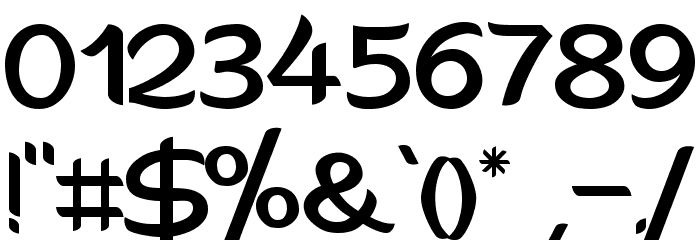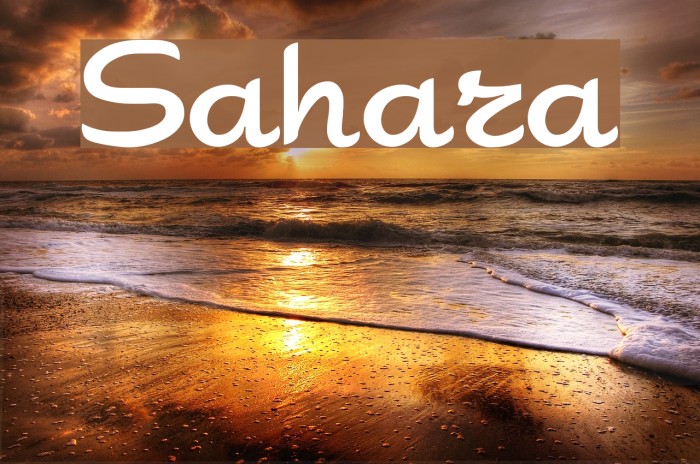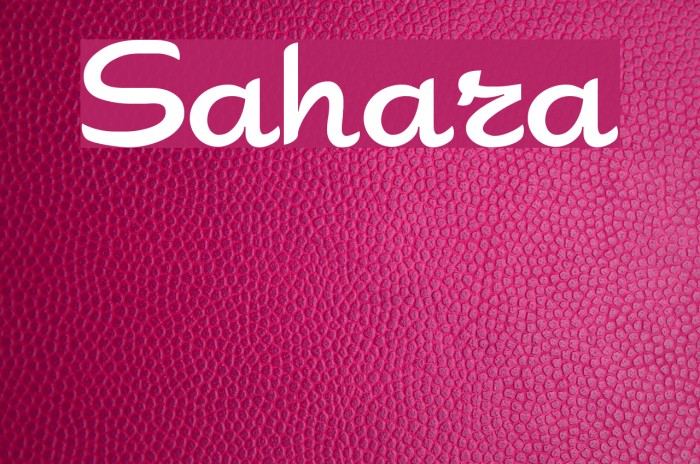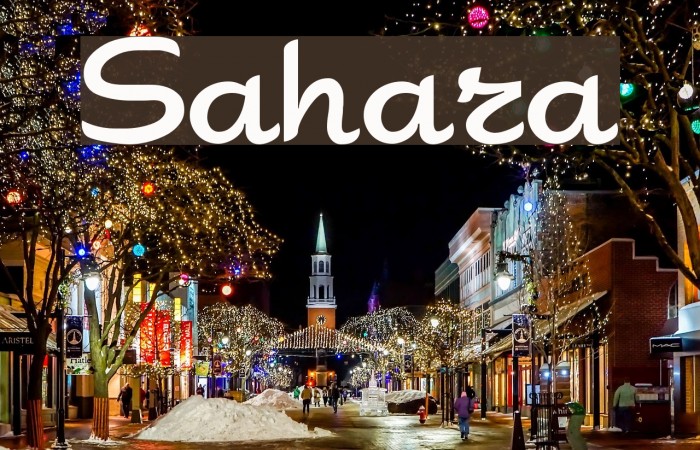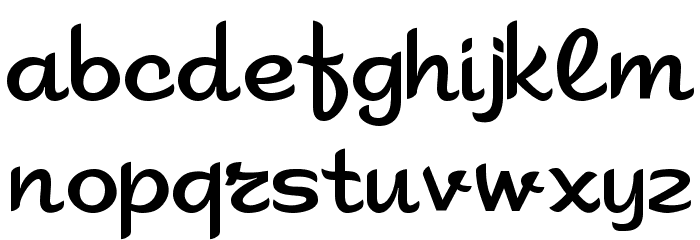
Sahara Font
Sahara Description
This font exhibits a playful and lively script style with a handwritten feel. The characters are bold and rounded, featuring smooth curves and a consistent stroke width that conveys a sense of fluidity and motion. The uppercase letters have a distinctive flair with exaggerated loops and swashes, while the lowercase letters maintain a more subdued yet equally dynamic appearance. The numerals are well-proportioned and align seamlessly with the overall aesthetic. Special characters are designed to complement the font's energetic style, making it suitable for creative and informal applications.
| Use Case | Logos, Headlines, Posters |
| Proposed Projects | Ideal for greeting cards, playful branding, children's book covers, and creative posters. |